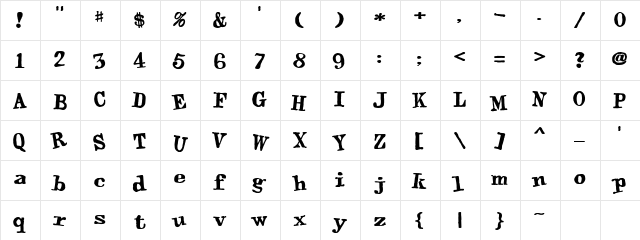
LDJ Old TypeFace Regular
Design Context for LDJ Old TypeFace Typeface
LDJ Old TypeFace takes a measured approach to typography — its balanced proportions and neutral character make it a reliable workhorse for both digital and print work.